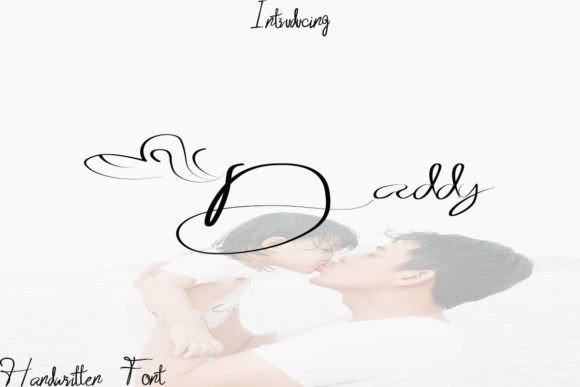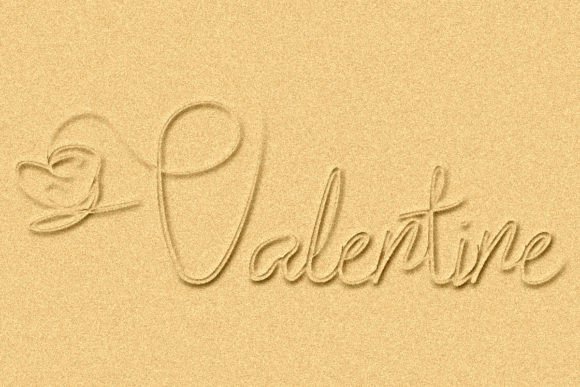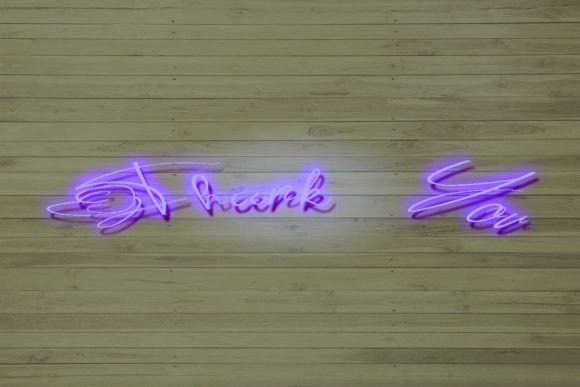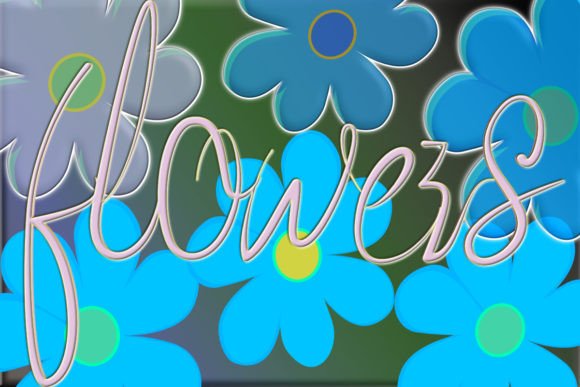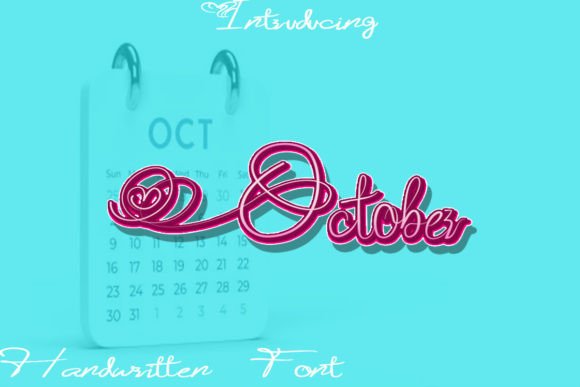
Daddy Font: Elevate Your Designs with Elegance and Sophistication
In the world of typography, a font can make or break the aesthetic of a design. For those seeking a touch of elegance and sophistication, the Daddy Font is an exceptional choice. This calligraphic script font is a masterpiece that combines the classic style of copperplate calligraphy with the flair of hand lettering, resulting in a truly unique and captivating typeface.
The Characteristics of Daddy Font
Daddy Font boasts a range of characteristics that make it an attractive choice for designers and crafters. Its subtle, clean, and feminine design exudes a sense of sensuality and glamour, making it perfect for projects that require a touch of sophistication. The font’s classic style ensures that it remains simple and easy to read, allowing your message to shine through without being overpowered by the typography.
What Makes Daddy Font So Versatile?
One of the standout features of Daddy Font is its versatility. Its elegant design makes it suitable for a wide range of applications, from formal events to everyday branding. Some of the many uses for this font include:
• Invitations: Whether it’s a wedding, birthday, or formal gala, Daddy Font is the perfect choice for creating stunning invitations that set the tone for your event.
• Labels and Packaging: Add a touch of luxury to your product labels and packaging with this sophisticated font.
• Menus: Elevate your restaurant or cafe’s menu with a font that exudes elegance and refinement.
• Logos: Create a lasting impression with a logo that features Daddy Font, perfect for businesses that want to convey a sense of style and sophistication.
• Fashion and Beauty: This font is a natural fit for fashion and beauty brands, adding a touch of glamour to branding, advertising, and marketing materials.
• Stationery and Letterpress: Add a touch of classic elegance to your stationery and letterpress materials, perfect for personal or business use.
• Romantic Novels and Magazines: Create a captivating and immersive reading experience with Daddy Font, ideal for romantic novels, magazines, and other publications.
• Greeting and Wedding Cards: Make your cards truly special with a font that conveys love, elegance, and sophistication.
PUA Encoding: Unlocking Endless Creative Possibilities
Daddy Font is PUA (Private Use Area) encoded, which means that you can access a vast array of glyphs and ligatures with ease. This feature allows you to unlock endless creative possibilities, taking your designs to the next level. With PUA encoding, you can:
• Access alternative characters and ligatures to add variety to your designs.
• Create unique and customized typography that reflects your brand’s personality.
• Experiment with different styles and combinations to find the perfect look for your project.
Why Choose Daddy Font?
With so many fonts available, why choose Daddy Font? Here are just a few reasons why this typeface stands out:
• Unique and elegant design that adds a touch of sophistication to any project.
• Versatile and adaptable, suitable for a wide range of applications.
• PUA encoded for easy access to glyphs and ligatures.
• Clean, simple, and easy to read, ensuring your message shines through.
• Feminine and sensual design that exudes glamour and refinement.
Daddy Font is an exceptional choice for designers and crafters seeking to elevate their designs with elegance and sophistication. Its unique blend of copperplate calligraphy and hand lettering style makes it a truly captivating typeface that is sure to impress. With its versatility, PUA encoding, and range of applications, Daddy Font is an invaluable addition to any designer’s toolkit. Whether you’re working on a formal event, branding project, or creative endeavor, this font is sure to bring a touch of glamour and refinement to your work.